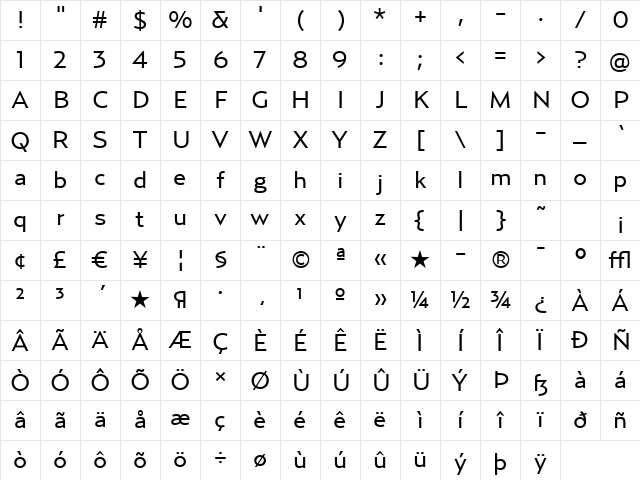
RelayWide-Regular Regular
Designer: Cyrus Highsmith
Design Context for RelayWide-Regular
RelayWide-Regular is a composed and adaptable typeface that performs quietly and consistently across a wide range of design contexts.
Pro Tip: Use RelayWide-Regular in both headline and body roles to test its range before committing to a single application.